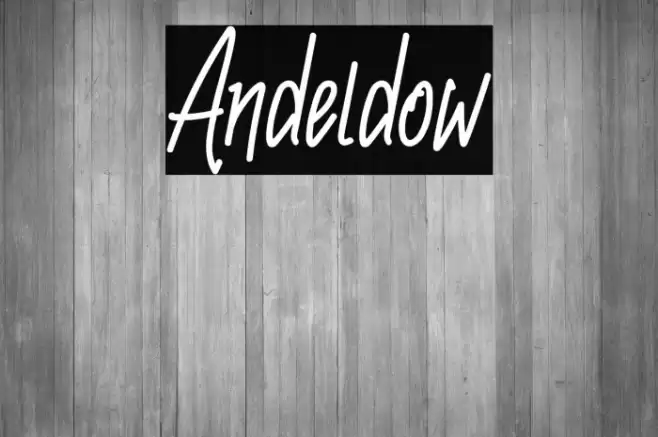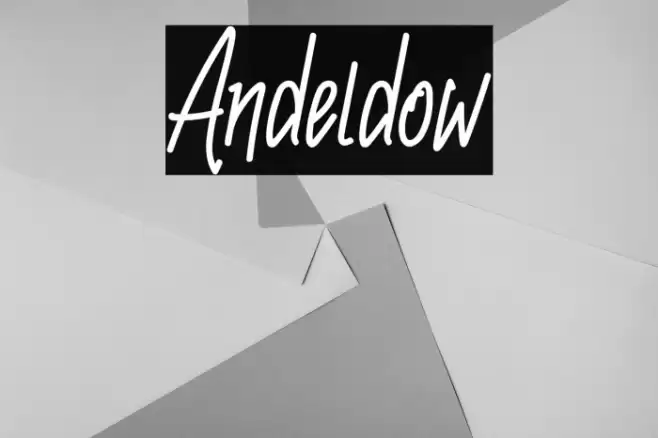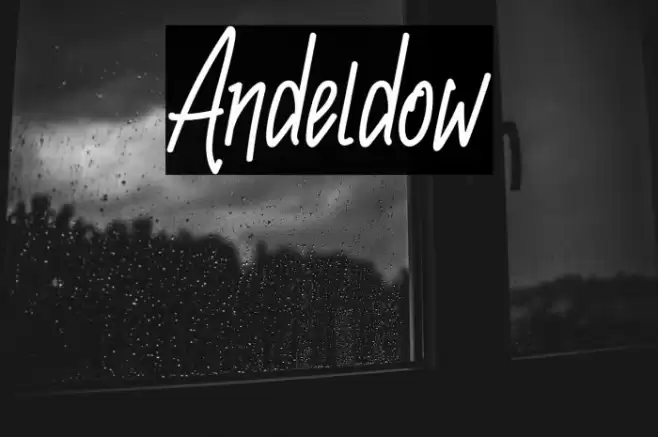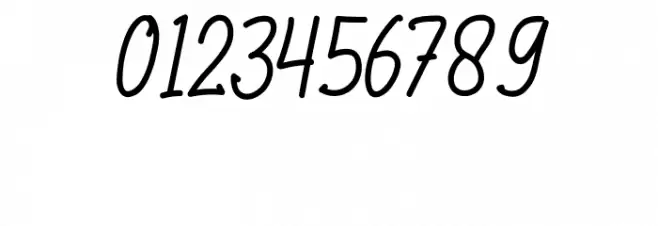
Andeldow Font
Andeldow Description
This font features a handwritten style with a casual and flowing appearance. The characters are slightly slanted, giving it a dynamic and lively feel. The uppercase letters are tall and narrow, while the lowercase letters maintain a consistent height, creating a harmonious balance. The numbers are clear and legible, matching the overall aesthetic. The strokes are smooth with a medium contrast, adding to the font's readability. This style is perfect for projects that require a personal touch or a creative flair.
A casual, handwritten font with a dynamic and flowing style from Regular fonts.
- Proposed Projects: Ideal for greeting cards, personal branding, creative invitations, and artistic posters.
- Overall Style: Casual
- Use Case: Logos, Invitations, Personal Branding